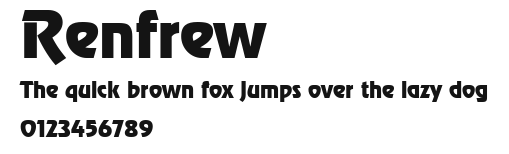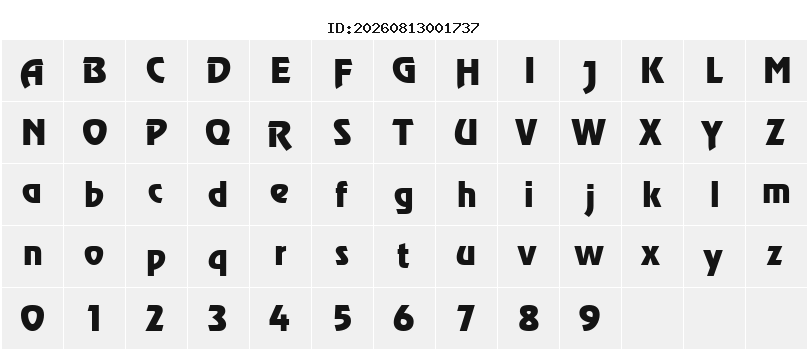
• Font Name: Renfrew
• Full Font Name: Renfrew
About Renfrew.ttf
Renfrew.ttf is a modern, elegant sans-serif font designed for ultimate readability and visual harmony. Perfect for branding, headlines, web design, and print materials.